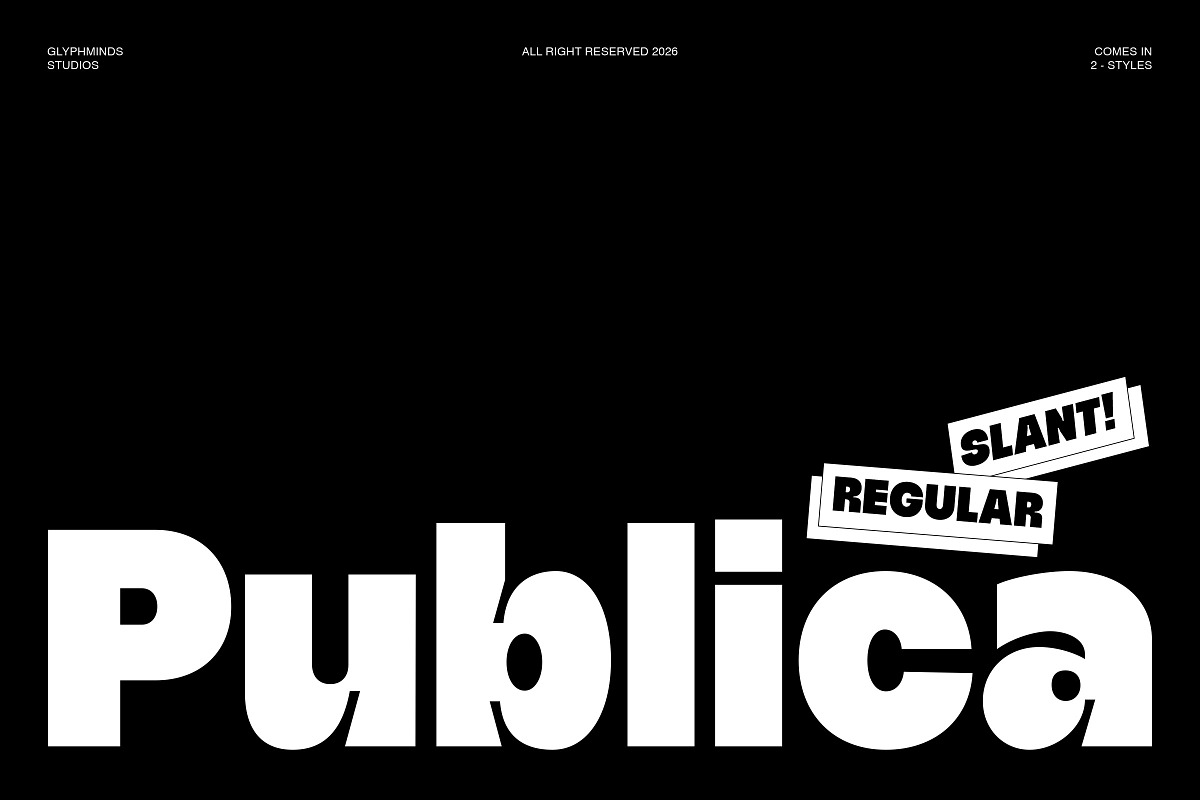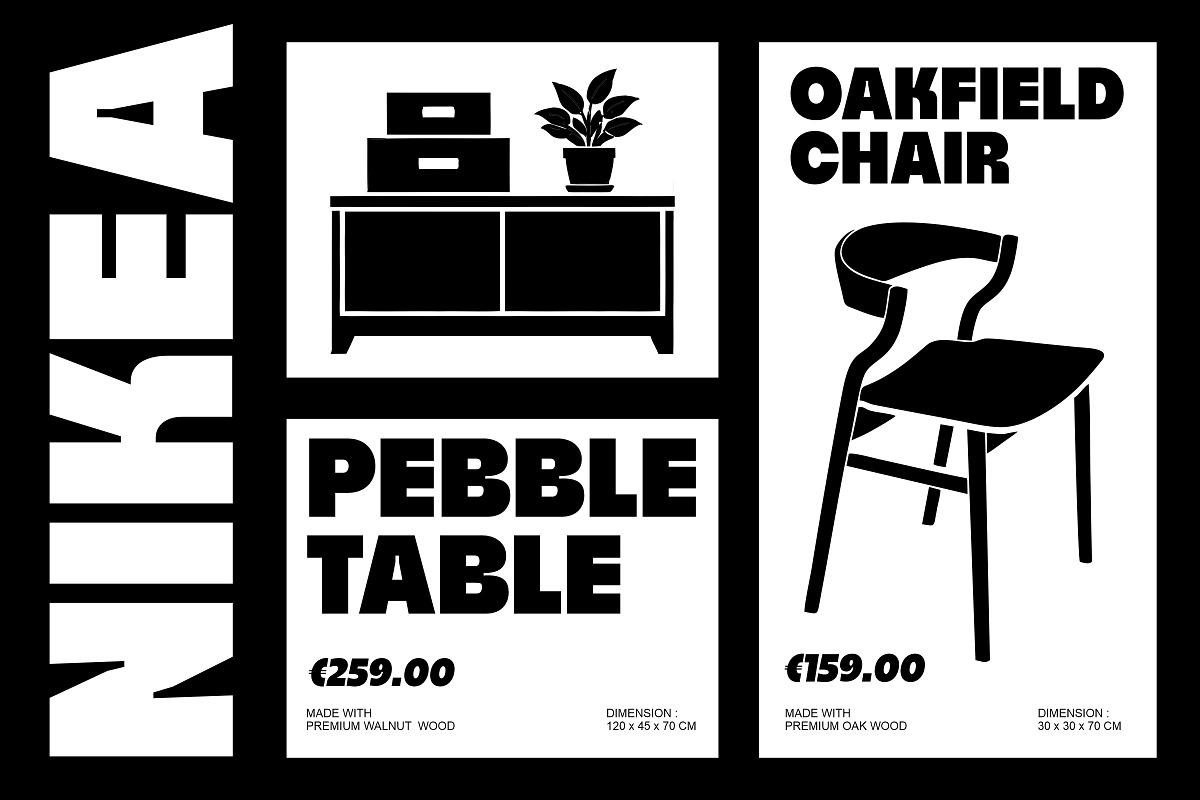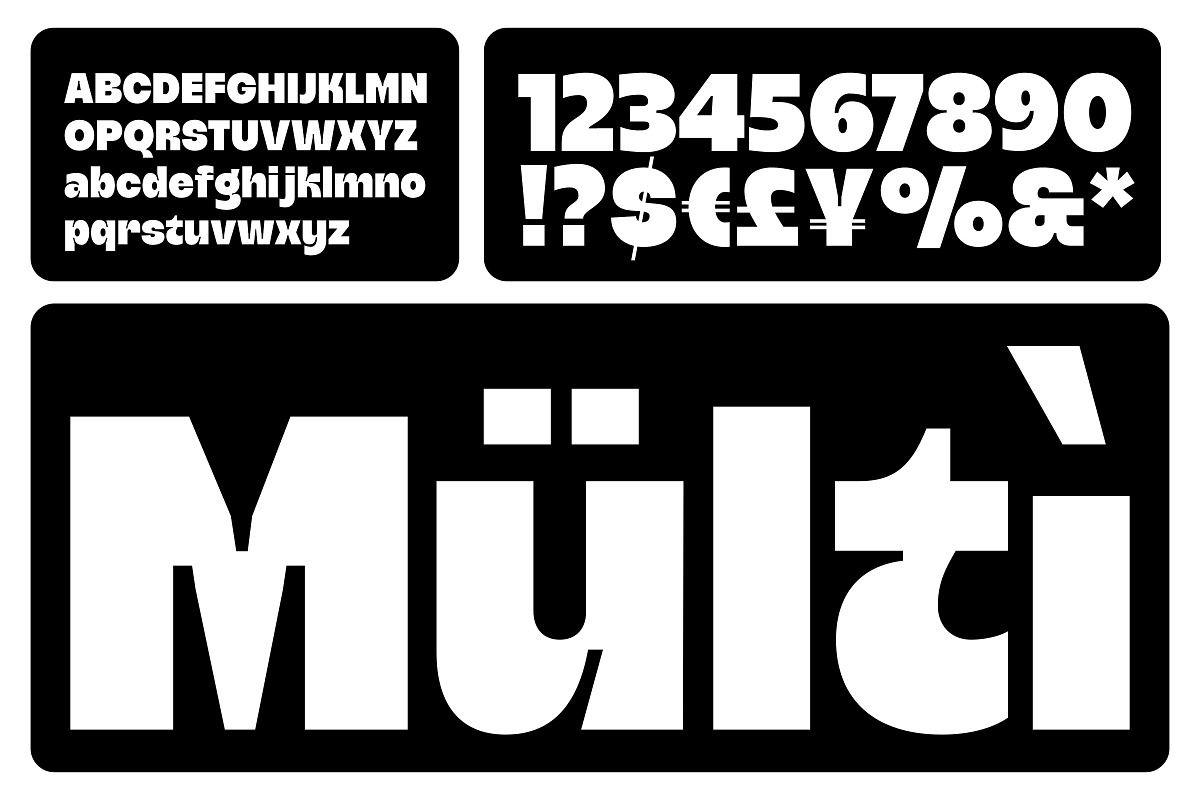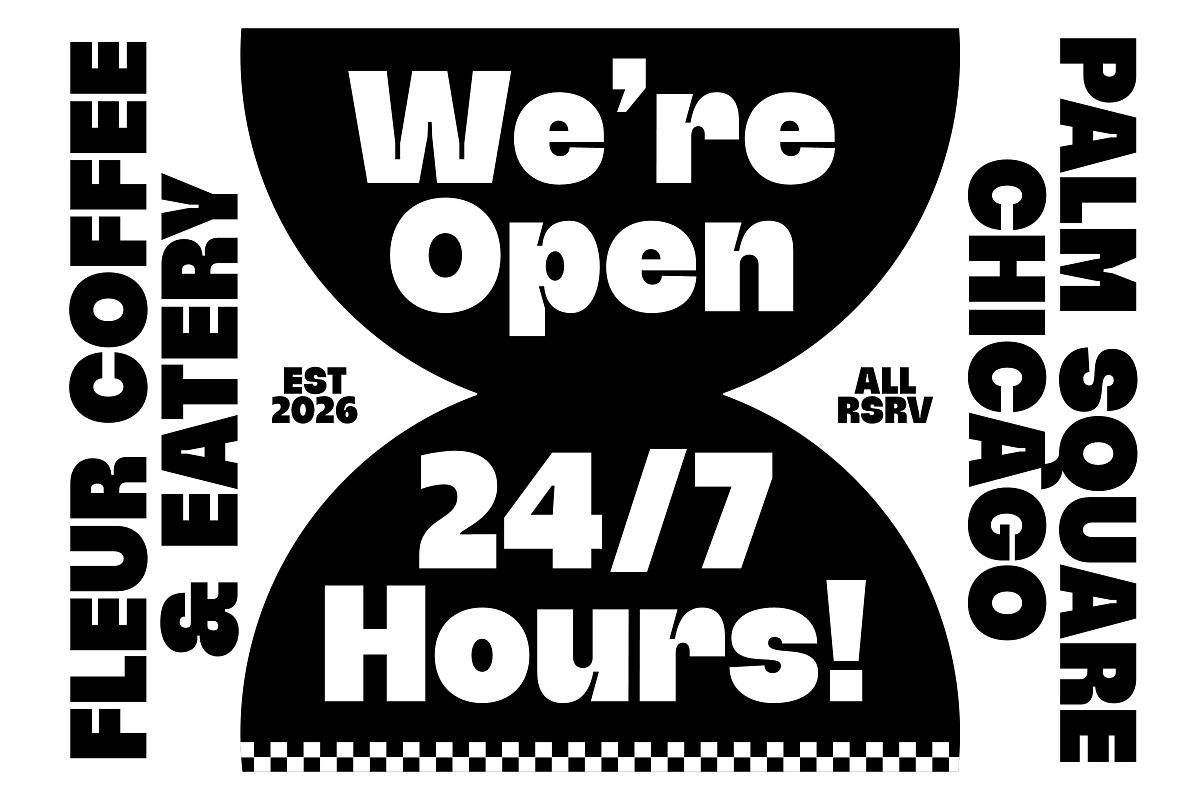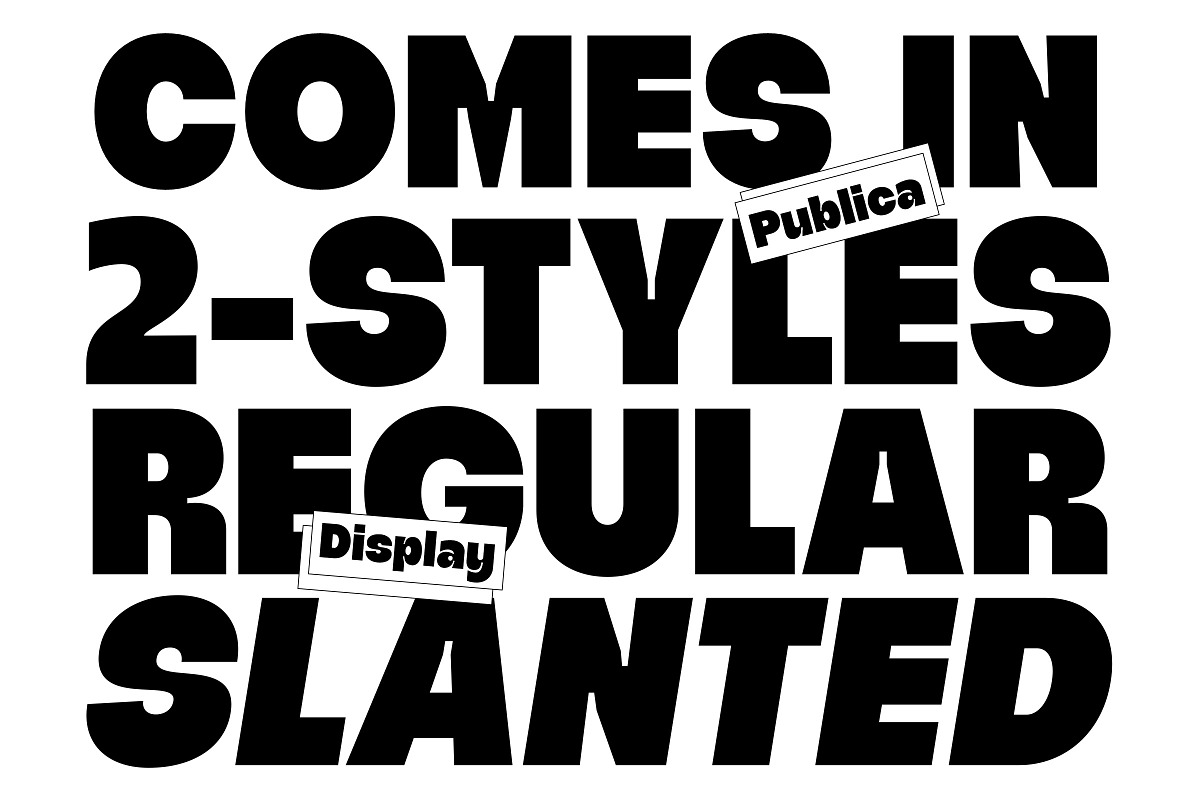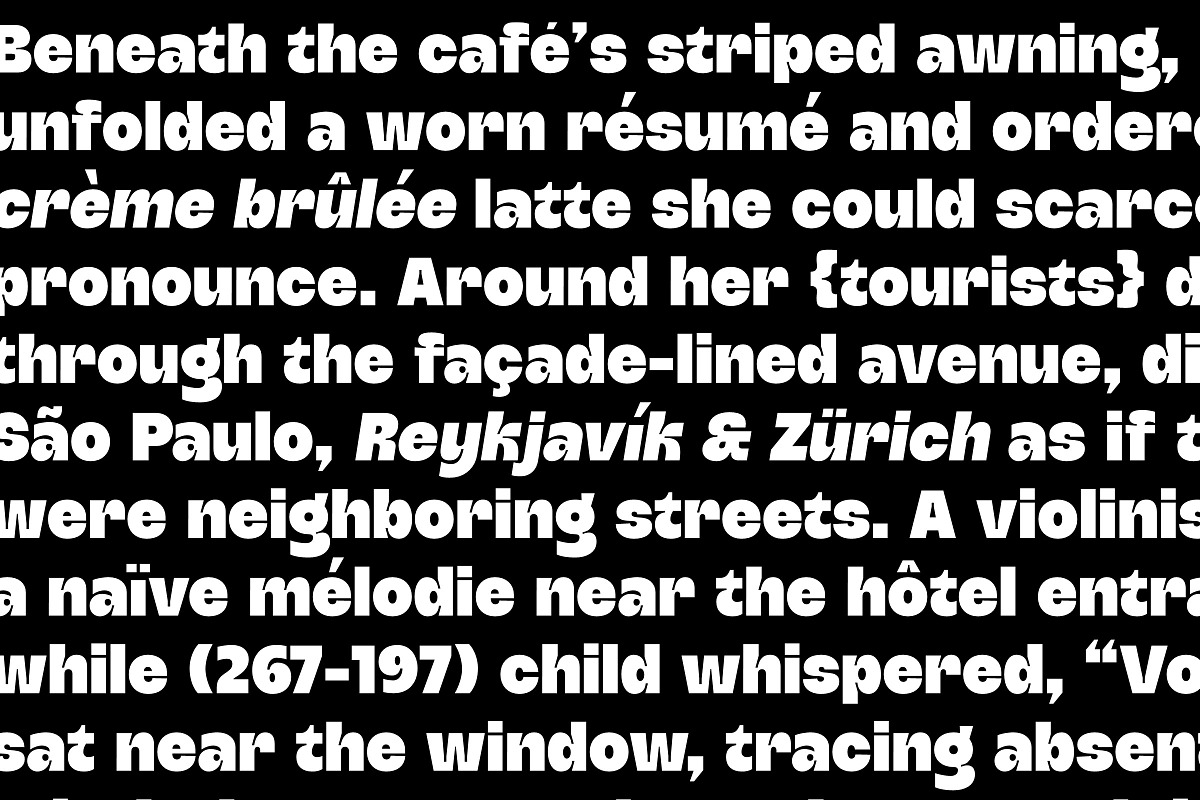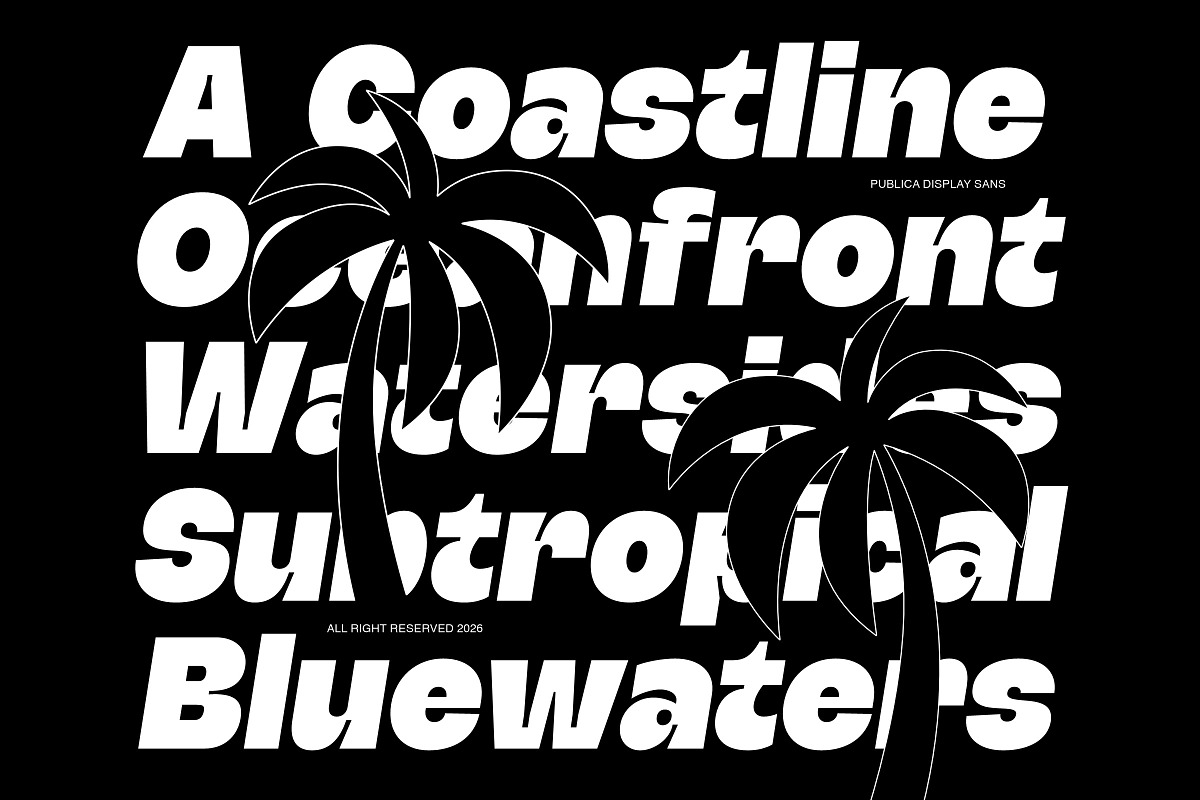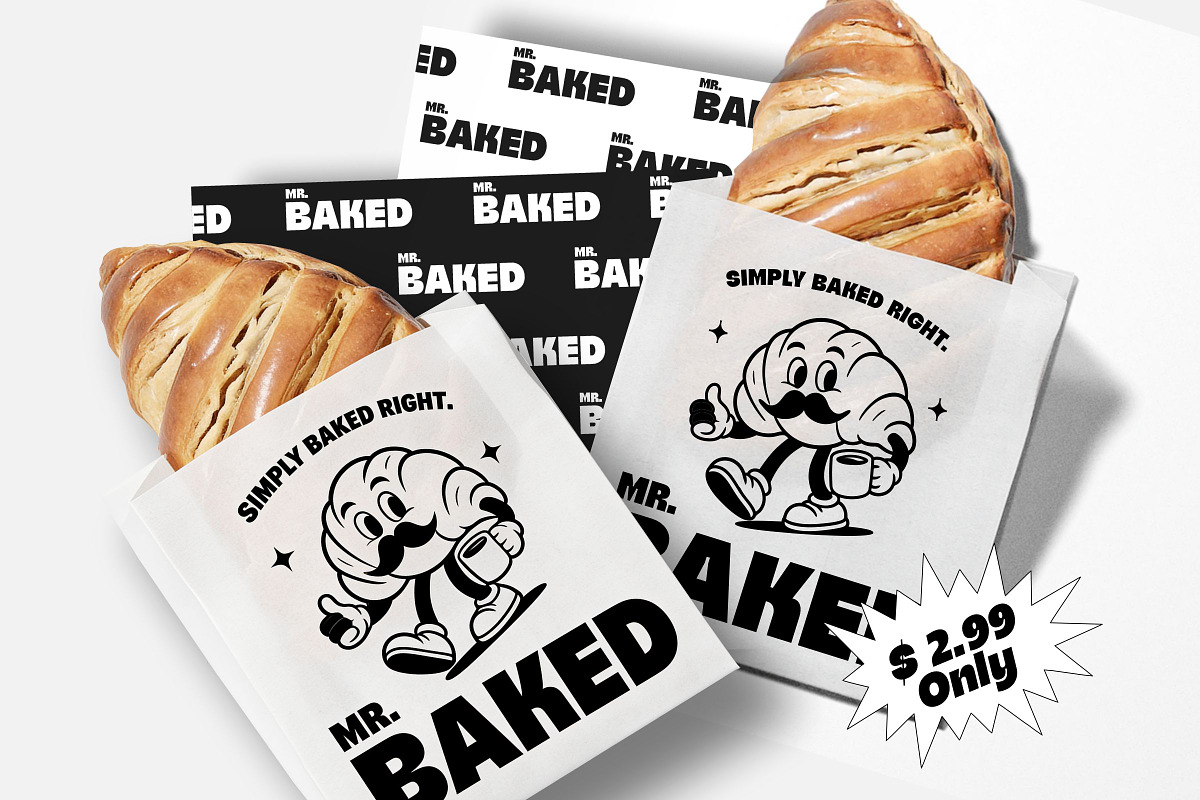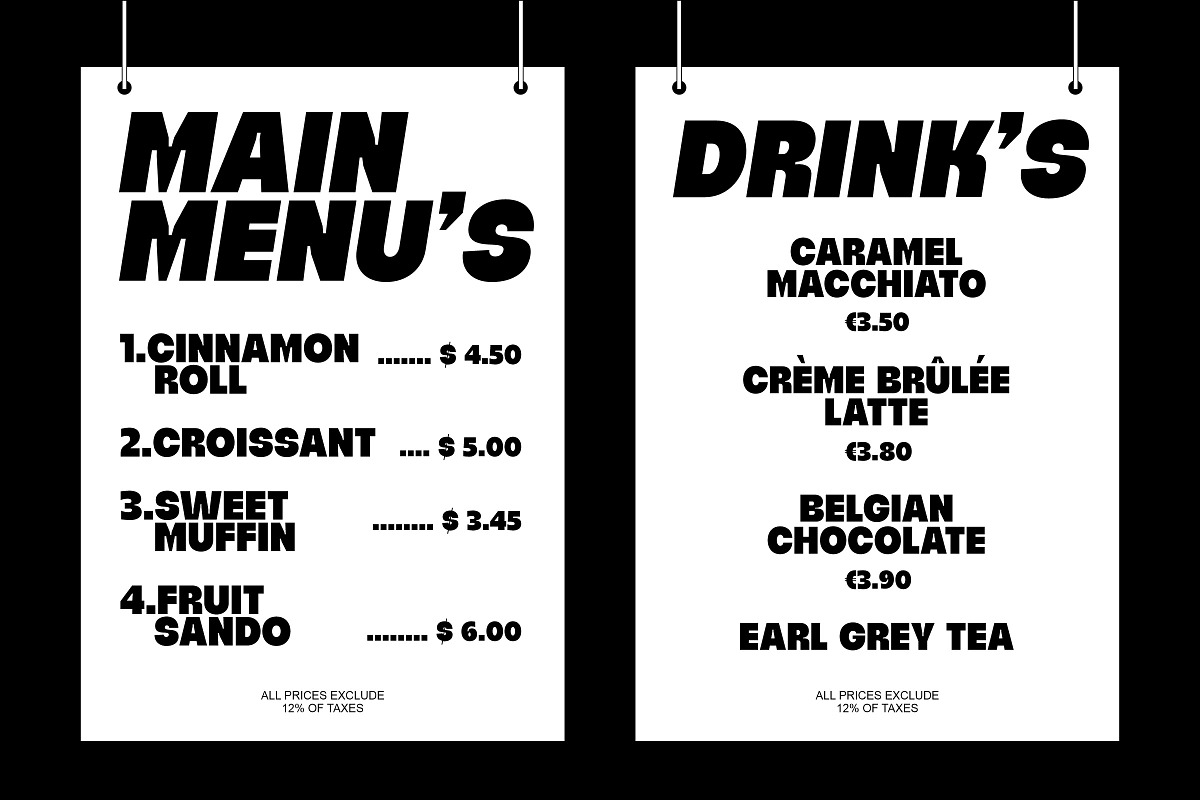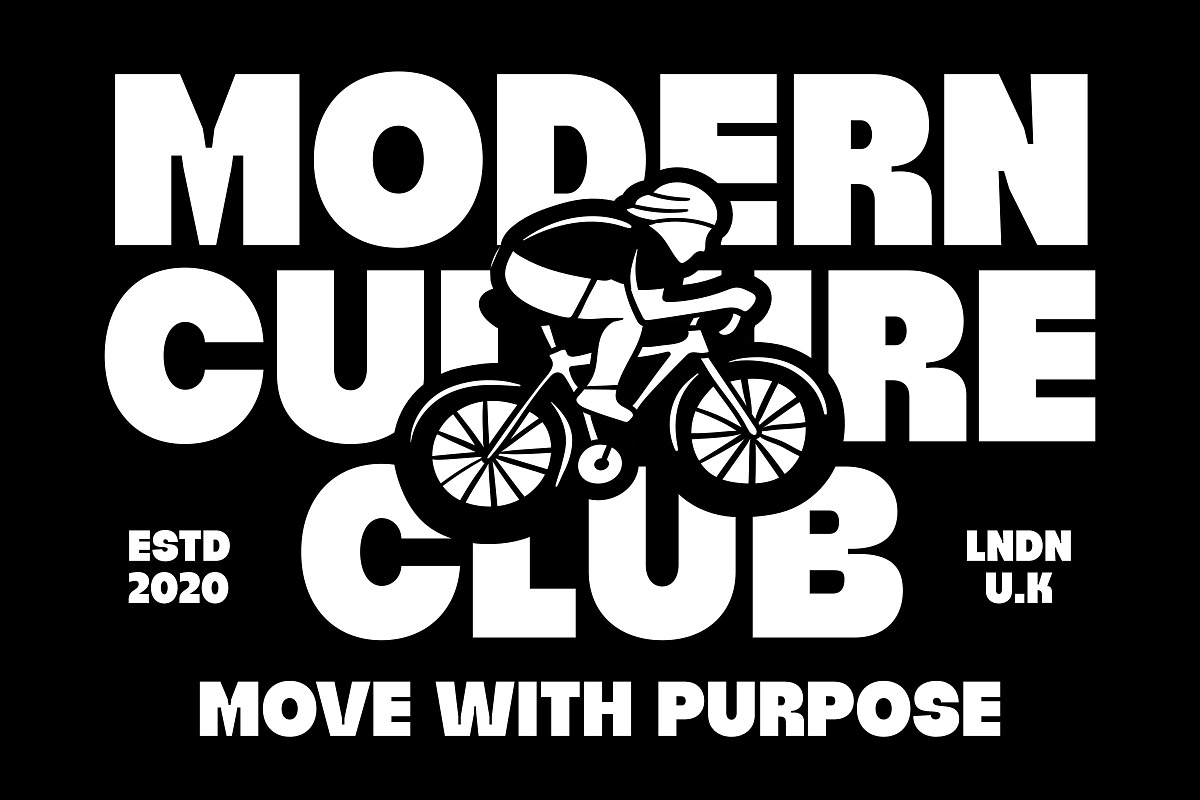
Publica
Publica – Bold Display Typeface
Make your designs impossible to ignore.
Publica is a modern bold display font designed to create strong visual impact while maintaining a clean contemporary appearance.
Available in 2 styles: Regular & Slanted, Publica is perfect for designers, creators, agencies, and brands that want to build memorable visuals with confidence.
Publica combines geometric shapes, thick letterforms, and modern aesthetics to help your projects look professional and eye-catching instantly.
Whether you're creating a fashion brand, a modern startup identity, or a powerful marketing campaign, Publica delivers bold personality with minimal effort.
* Publica Regular
* Publica Slanted
* Uppercase & Lowercase
* Numbers & Punctuation
* Multilingual Support